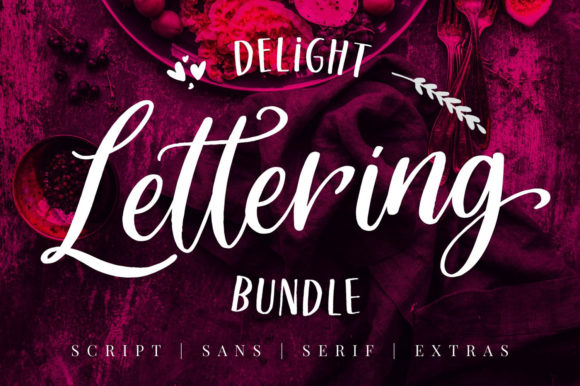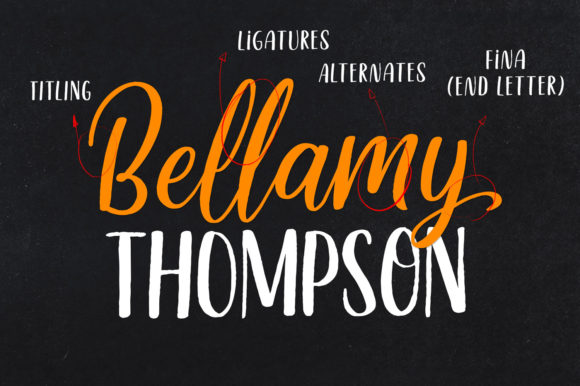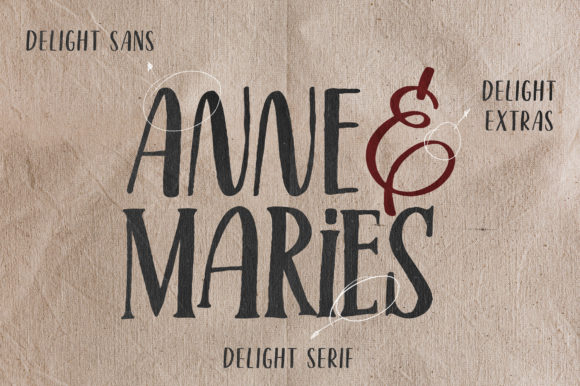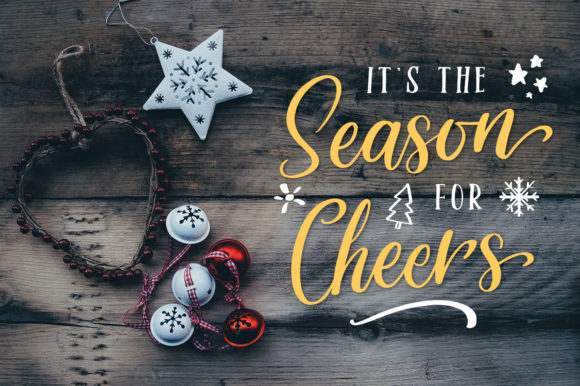
About the Delight Lettering Font
Add a touch of class to your work with the Delight Lettering Font, a truly exceptional typeface. Please, welcome! Delight Lettering Bundle. A bunch of casual hand lettering brush with modern calligraphy style.
Perfectly fit for casual branding, logo, greeting cards, fancy label, quotes, poster, cosmetic, printed stuff, prepare to explore!
Delight Lettering excels in display applications such as logos, headlines, and short-form text on packaging or posters. Its casual, hand-lettered style lends itself well to projects requiring a friendly, approachable aesthetic. Avoid using it for large blocks of body text or UI elements; its informal nature compromises readability in extended passages.
Pair Delight Lettering with a clean sans-serif like Montserrat for a balanced contrast, or a geometric sans-serif such as Futura for a more modern feel. For a touch of elegance, consider pairing it with a delicate serif font like Garamond. These pairings provide structure and readability, complementing Delight Lettering’s expressive brush script character.
The font’s core personality is best described as playful and approachable, with a touch of modern sophistication. It’s ideal for brands targeting a younger demographic or those wishing to convey a sense of warmth and approachability.